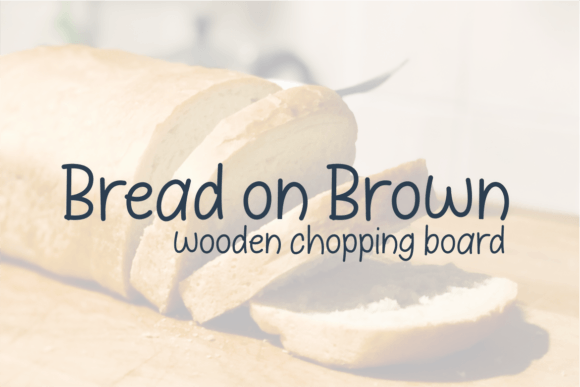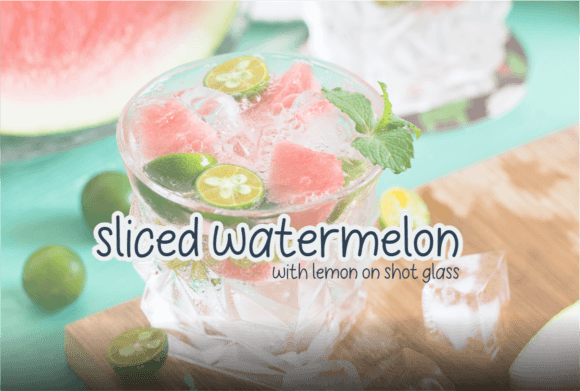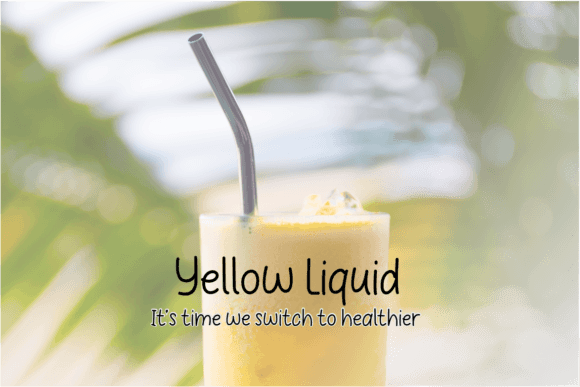
Introduction to Rotriclass Font
Have you ever stared at a blank canvas, struggling to find the perfect font to bring your creative project to life? I’m sure many designers can relate to this moment. For me, it was a late night brainstorming session, pouring over design resources, searching for the perfect handwriting font to capture the essence of a food brand.
That’s when I stumbled upon the Rotriclass Font, a beautifully crafted handwritten font designed specifically for display purposes. Its uniqueness lies in the imperfections of each letter, making it a valuable asset for designers looking to add a personal touch to their work.
Key Features of Rotriclass Font
- High-quality design resource for creative projects: Rotriclass Font offers a unique and stylish aesthetic perfect for various design applications.
- Unique and creative design: The unique design of Rotriclass Font sets it apart from other fonts, making it an excellent choice for designers looking to add a touch of creativity to their projects.
Honest Review: Rotriclass Font
As a designer, I’m always on the lookout for high-quality design resources to elevate my creative projects. Recently, I stumbled upon the Rotriclass Font, and I must say it’s been a game-changer for me.
What works well about the Rotriclass Font is its versatility and sophistication. The clean lines and elegant typography make it perfect for a wide range of applications, from corporate branding to creative projects. I’ve used it for everything from logo designs to social media graphics, and it always looks amazing.
Some of the key features that I love about the Rotriclass Font include:
- High-quality design with a transparent background, making it easy to work with
- Perfect for creative projects that require a touch of elegance and sophistication
One limitation of the Rotriclass Font is that it may not be suitable for all types of designs. For example, it may not be the best choice for bold or playful projects, as it tends to lean towards a more minimalist aesthetic.
Overall, I’m really impressed with the Rotriclass Font. It’s a great addition to any designer’s toolkit, and I would highly recommend it to anyone looking for a high-quality design resource.
How to Use Rotriclass Font
The Rotriclass Font is a high-quality design resource perfect for creative projects. Its transparent background makes it versatile and easy to use in various design platforms.
Tips for Getting the Most Out of Rotriclass Font
Experiment with different font sizes and styles to create visually appealing text. Use the font in combination with other design elements to add depth and interest to your project.
The Rotriclass Font is ideal for use in creative projects such as logo designs, brochures, and social media graphics. Its high-quality design and transparent background make it a popular choice among designers and creatives.